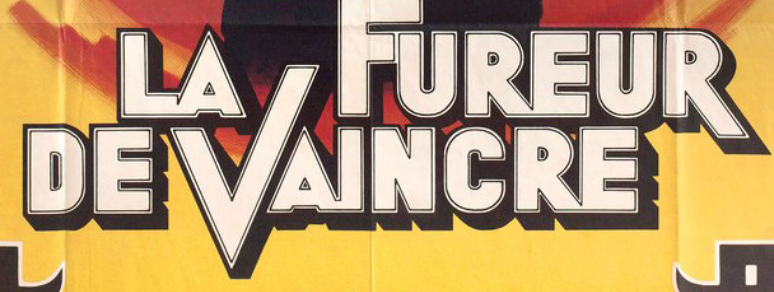
Sans serif resembling dazzle solid, Used for French rendition of The Chinese Connection film poster starring Bruce Lee.
Used for French rendition of The Chinese Connection film poster starring Bruce Lee.